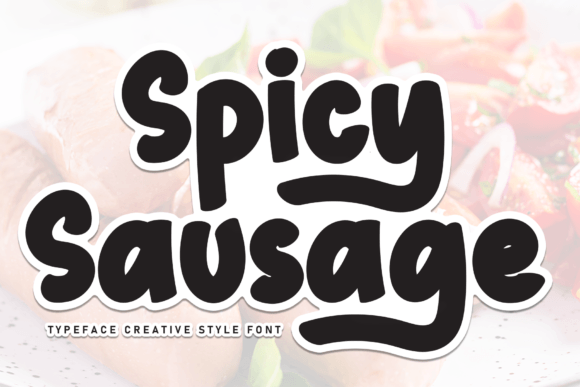
Feast your eyes on Spicy Sausage, a delectable script font that exudes sweetness and warmth like a well-loved family recipe. Brimming with playful charm, this font is a feast for the eyes, adding a touch of whimsy to your creative endeavors.
Indulge in the delightful curves of Spicy Sausage, each letter crafted with meticulous care to capture the essence of handwritten bliss. Its jovial nature dances across the page, evoking feelings of joy and lightheartedness. This font is a culinary delight, a dash of spice that elevates your designs to new heights of visual appeal.
Like a skilled chef, Spicy Sausage blends form and function seamlessly. It's a versatile font that complements a wide range of design styles, from the elegant allure of wedding invitations to the playful charm of greeting cards. Whether you're a seasoned designer or just starting your creative journey, Spicy Sausage is the perfect ingredient to add a touch of magic to your projects.
Picture your designs adorned with the captivating strokes of Spicy Sausage, turning ordinary text into a visual masterpiece. Its enchanting aura will captivate your audience, leaving them craving more. This font is a testament to the artistry of hand lettering, bringing a touch of warmth and personality to every word it graces.
So, dive into the world of Spicy Sausage and let your creativity run wild. Let this font be your secret ingredient, adding a dash of delight to your designs. Embrace the joy of handwritten artistry and create something truly extraordinary.